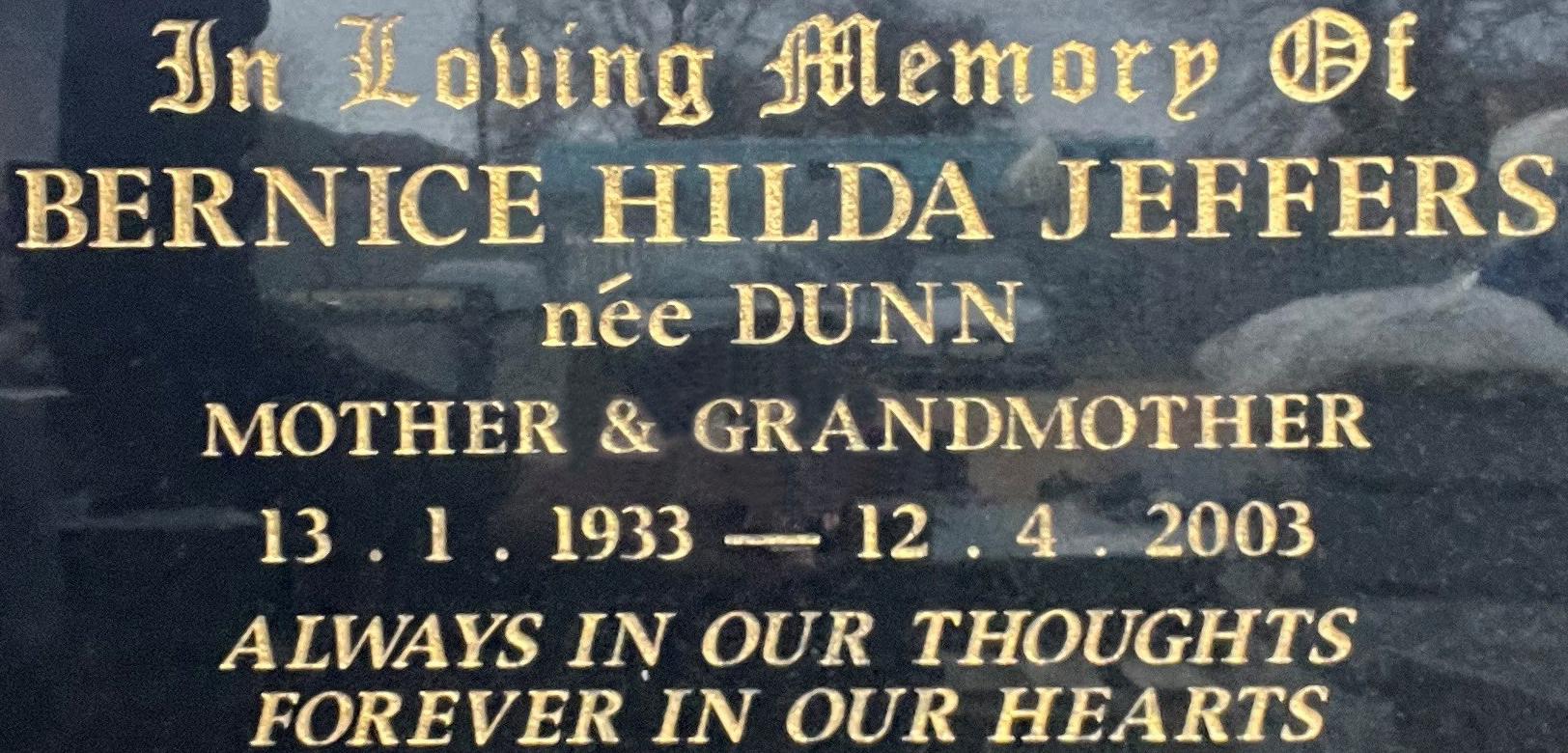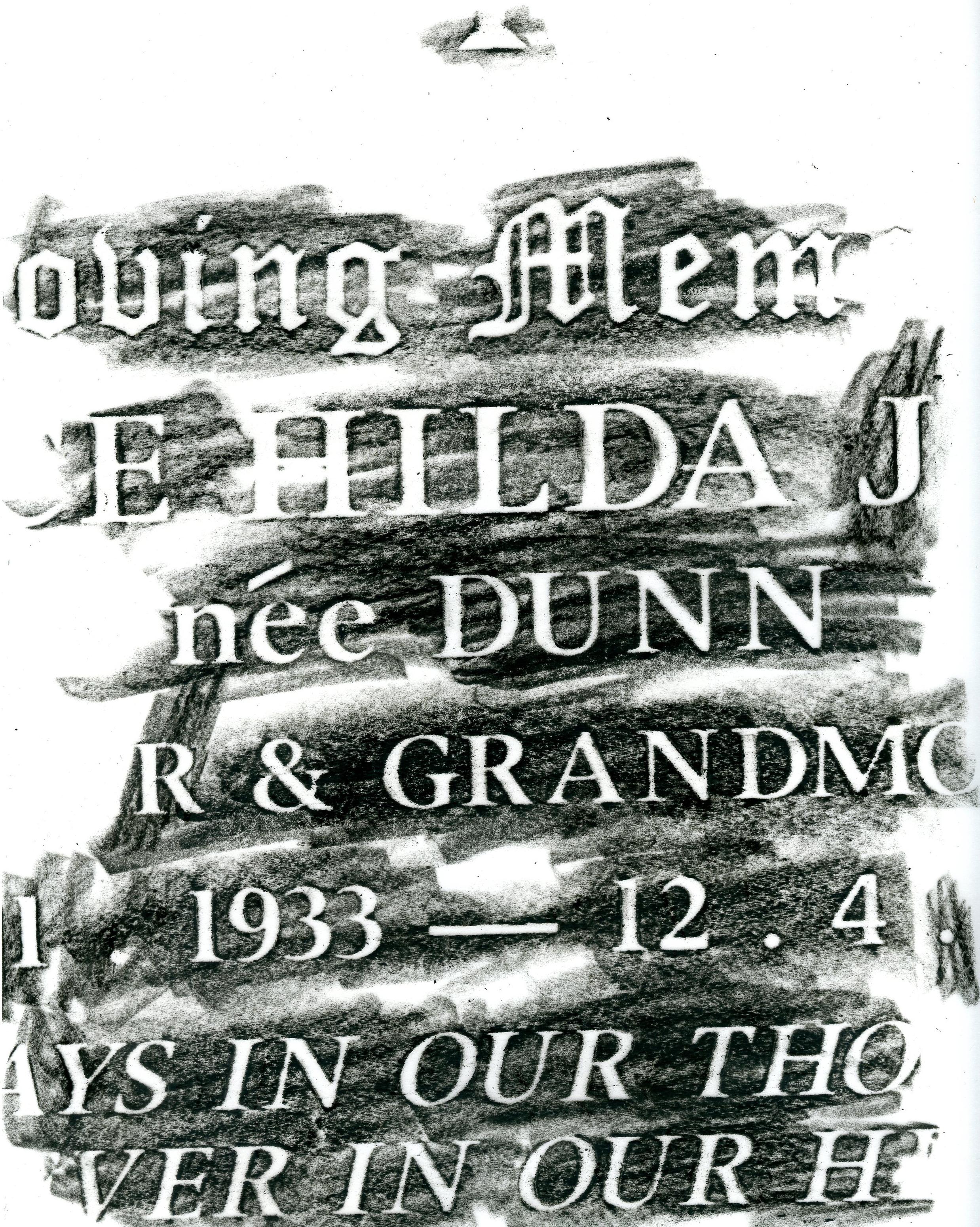
Semi Bold Times New Roman?
I feel I should know what this font is but I’m just not getting it. Semi-bold Times New Roman is close but not quite right.
I don’t need the blackletter font but it would be handy to know for the future.
This appears to be Apollo MT Semibold.